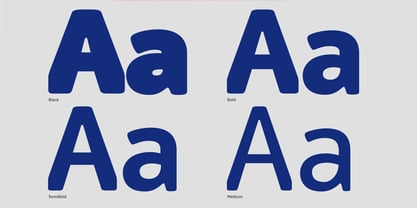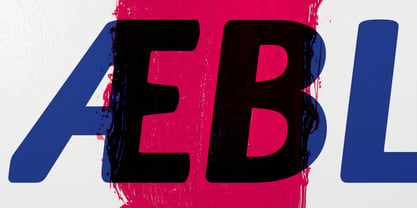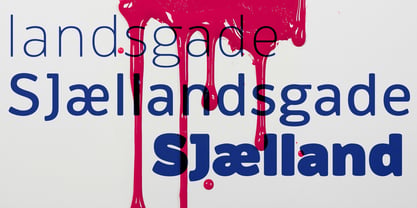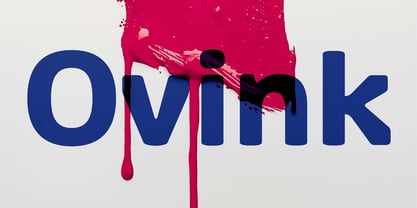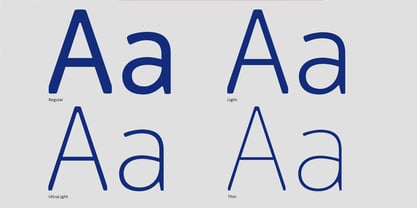
Ovink
by Kursivist
The Ovink Font Family was designed by Sofie Beier and published by Kursivist. Ovink contains 18 styles and family package options. More about this family
Ovink is a highly legible sans serif typeface that seamlessly merges typographic research with practical application. Designed by Sofie Beier, this typeface is grounded in empirical studies focused on letterform legibility, enhancing visual clarity across various contexts. Its design originates from an extensive research project that examined the legibility of individual lowercase letters, where multiple letter variants were experimentally tested to ensure only the most effective designs were included in the final typeface. The result is a type family characterized by high regularity, strong character differentiation, and meticulously controlled proportions—features that facilitate quick recognition and prolonged reading. Ovink excels in signage, wayfinding, information design, and public-facing environments, where legibility from a distance and robustness are crucial. Additionally, its calm rhythm and balanced texture make it ideal for running text, editorial design, and digital interfaces. With a broad range of weights, Ovink supports diverse display and text applications, allowing for intricate typographic hierarchies within a single family. Rooted in Danish typographic tradition, Ovink draws inspiration from Knud V. Engelhardt's street signage for Gentofte. While it retains the sturdy, unpretentious character of its historical reference, Ovink enhances the model with tighter curves and improved letter differentiation, resulting in a contemporary sans serif optimized for today's visual environments. Named after legibility researcher Gerrit Willem Ovink, this typeface embodies a commitment to evidence-based typography.
Designers: Sofie Beier